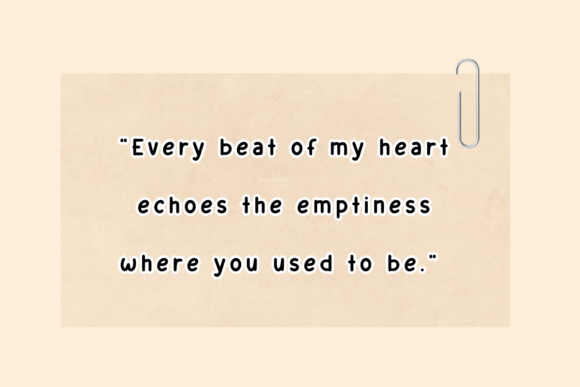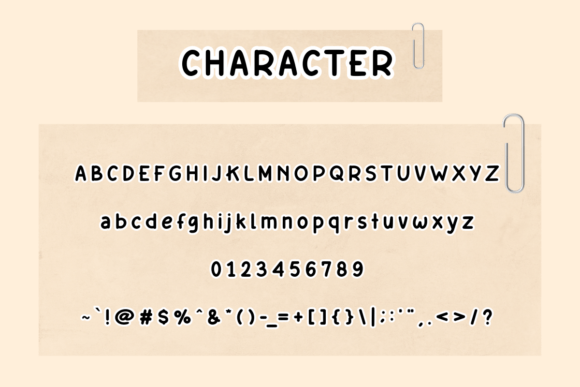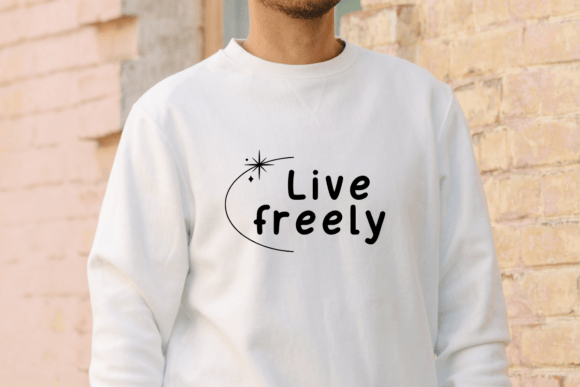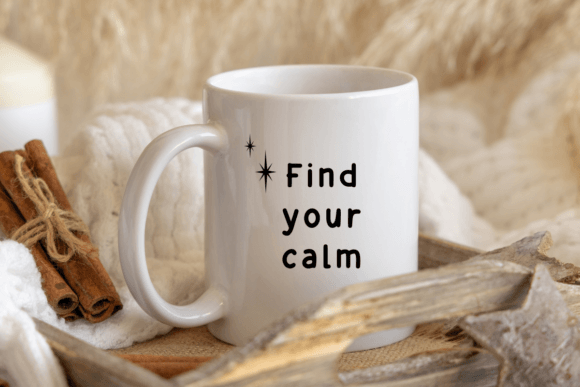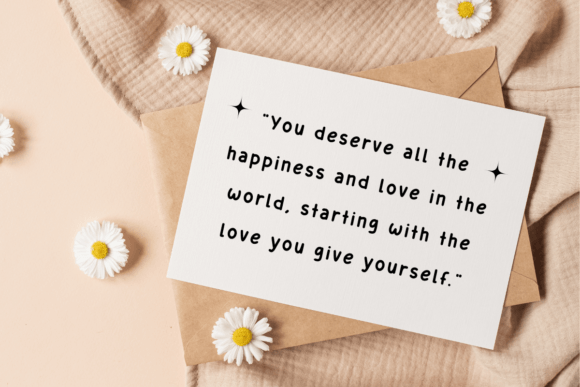
Heart Beats Font: The Perfect Choice for Romantic Designs
Are you looking for a font that exudes elegance, sophistication, and a touch of romance? Look no further than Heart Beats Font. This clean and modern sans serif font is designed to capture the essence of love and beauty, making it perfect for a wide range of design projects.
What is Heart Beats Font?
Heart Beats Font is a sans serif font that boasts a soft, elegant feel. Its smooth lines and balanced shapes create a sense of harmony and refinement, making it an excellent choice for designers and crafters who want to add a touch of sophistication to their work.
Key Features of Heart Beats Font
- Clean and Modern Design: Heart Beats Font features a clean and modern design that is perfect for contemporary designs and projects.
- Soft and Elegant Feel: The font’s soft and elegant feel makes it ideal for romantic designs, invitations, and other projects that require a touch of sophistication.
- Smooth Lines and Balanced Shapes: The font’s smooth lines and balanced shapes create a sense of harmony and refinement, making it perfect for a wide range of design projects.
Uses of Heart Beats Font
Heart Beats Font is a versatile font that can be used for a wide range of design projects, including:
- Romantic Designs: The font’s elegant and sophisticated feel makes it perfect for romantic designs, such as wedding invitations, Valentine’s Day cards, and other love-themed projects.
- Invitations: Heart Beats Font is an excellent choice for invitations, including birthday parties, baby showers, and other special events.
- Logos: The font’s clean and modern design makes it perfect for logos, particularly for businesses that want to convey a sense of elegance and sophistication.
- Stationery: Heart Beats Font can be used for stationery, including letterheads, business cards, and other paper products.
Benefits of Using Heart Beats Font
Using Heart Beats Font can bring numerous benefits to your design projects, including:
- Unique and Eye-Catching Designs: The font’s elegant and sophisticated feel can help you create unique and eye-catching designs that stand out from the crowd.
- Professional Look: Heart Beats Font can give your designs a professional look that is perfect for businesses and individuals who want to convey a sense of elegance and sophistication.
- Easy to Read: The font’s clean and modern design makes it easy to read, even at small sizes.
Tips for Using Heart Beats Font
Here are some tips for using Heart Beats Font:
- Use it for Headings and Titles: Heart Beats Font is perfect for headings and titles, particularly for romantic designs and invitations.
- Pair it with Other Fonts: The font can be paired with other fonts to create a unique and eye-catching design.
- Experiment with Different Sizes: Heart Beats Font can be used at different sizes, from small to large, to create a visually appealing design.
Heart Beats Font is a beautiful and elegant font that is perfect for romantic designs, invitations, logos, and other projects that require a touch of sophistication. Its clean and modern design, smooth lines, and balanced shapes make it an excellent choice for designers and crafters who want to create unique and eye-catching designs. With its versatility and ease of use, Heart Beats Font is a must-have font for any designer or crafter.